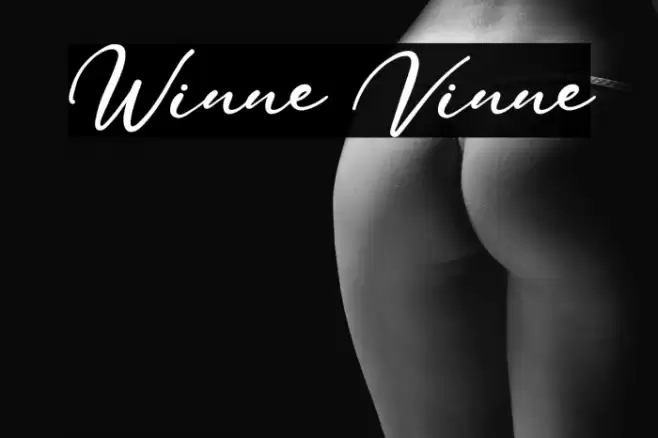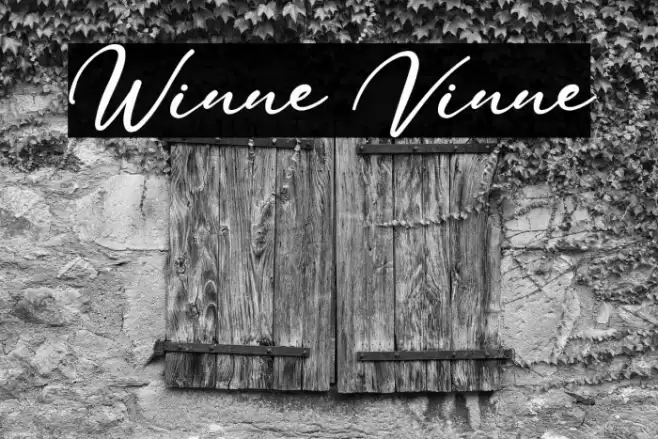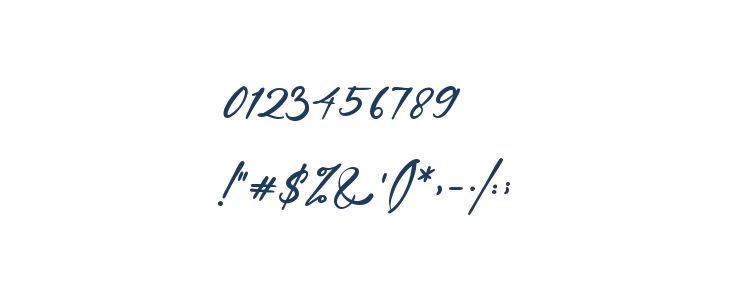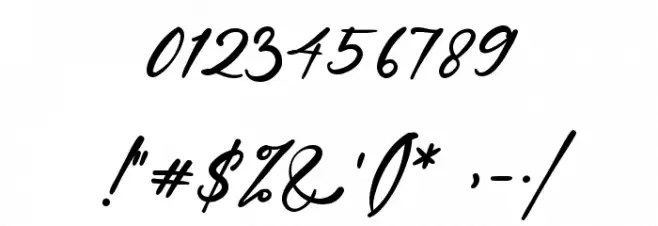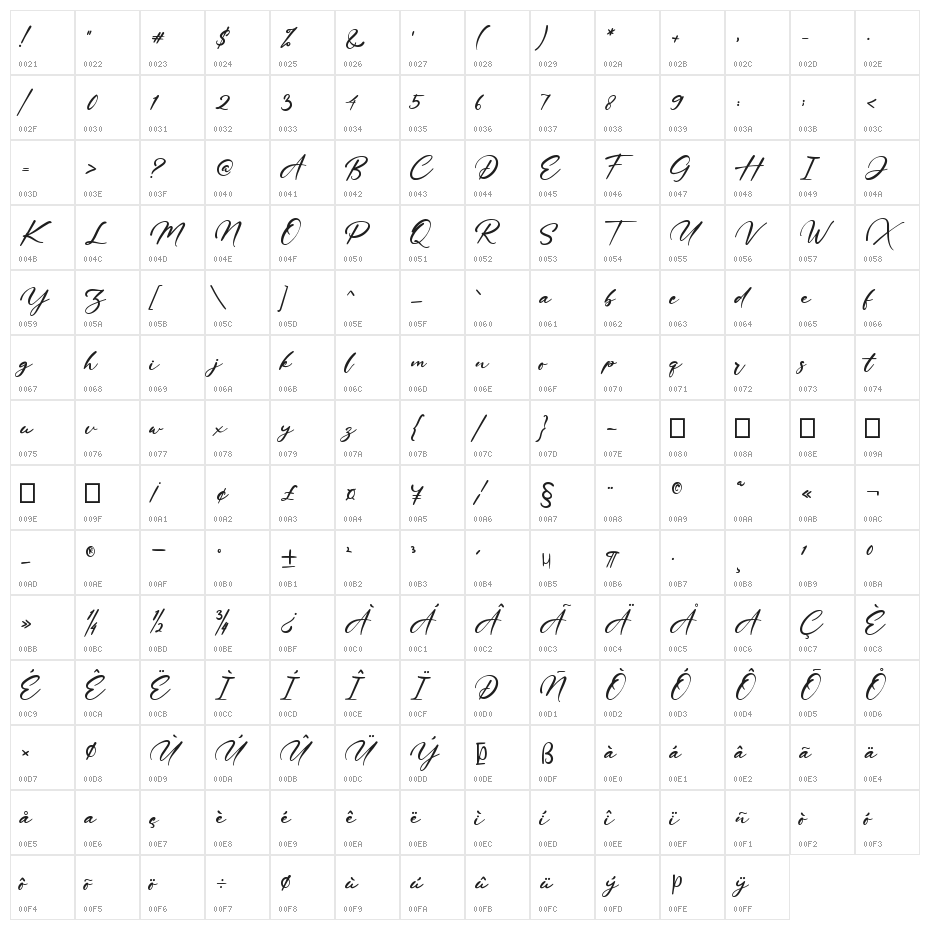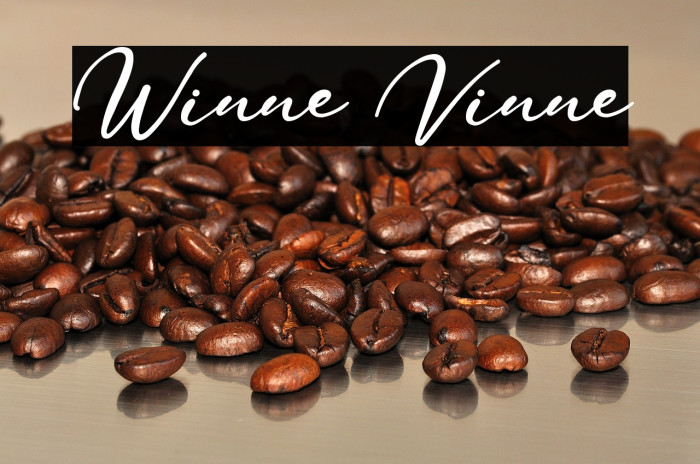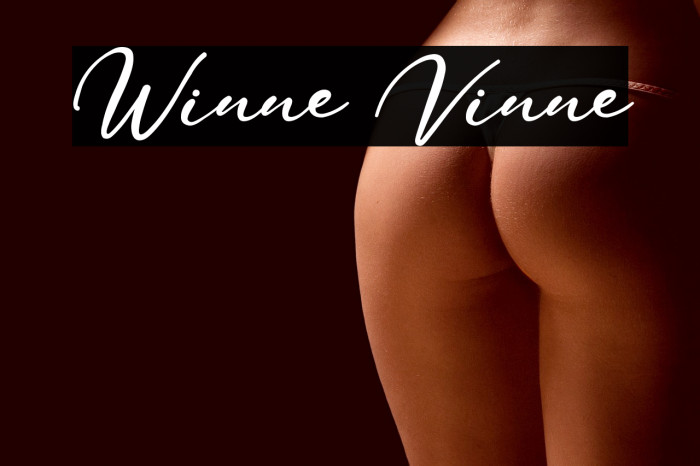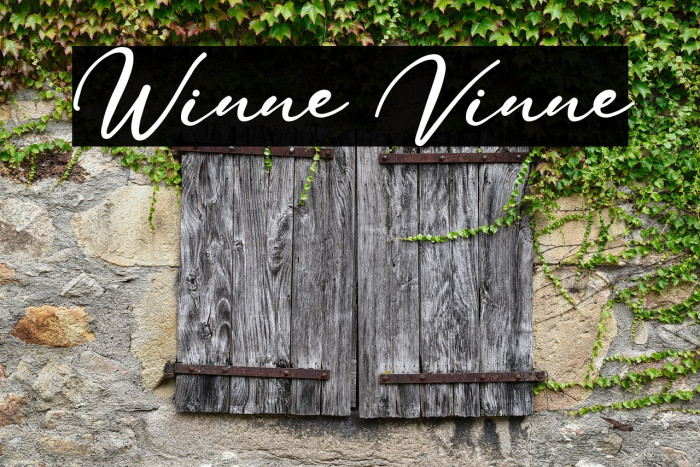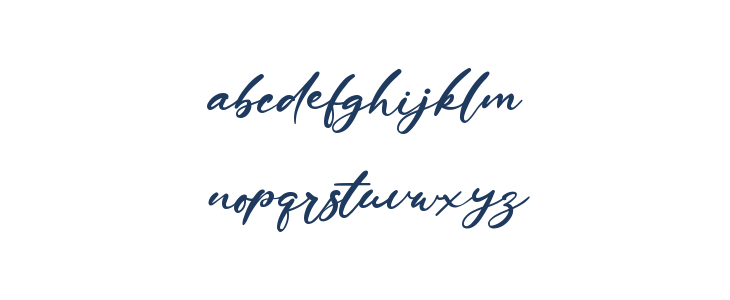
This elegant script font features a flowing, cursive style with smooth, connected strokes that create a sense of fluidity and grace. The uppercase letters are slightly more ornate, with sweeping curves and loops that add a touch of sophistication. The lowercase letters maintain a consistent flow, enhancing readability while retaining an artistic flair. Numbers and special characters are designed to match the overall aesthetic, ensuring a cohesive look across all text elements. The font's delicate yet confident appearance makes it suitable for a variety of creative applications.
A graceful and fluid script font with elegant, connected strokes from Uncategorized fonts.
- Proposed Projects: Ideal for wedding invitations, greeting cards, branding, and elegant packaging designs.
- Overall Style: Elegant
- Use Case: Logos, Invitations, Decorative text